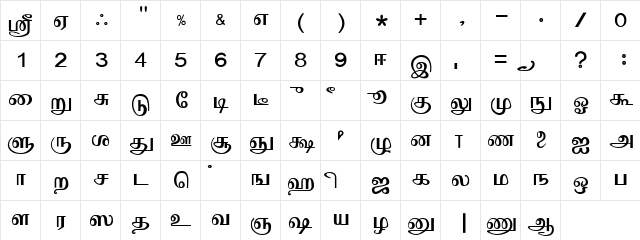
Mylai-Sri Regular
Design Context for Mylai-Sri Typeface
Mylai-Sri offers clean, dependable letterforms without strong stylistic allegiance, making it a practical choice for designers who need flexibility.